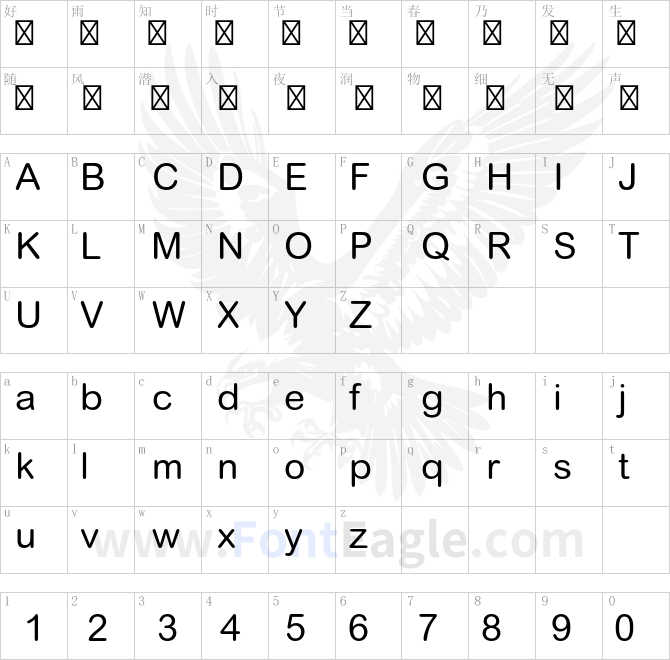
ArialRoundedMTStd is a great font, widely used in graphic design, single-page menu design, poster design and other fields, and is deeply loved by designers.ArialRoundedMTStd download.